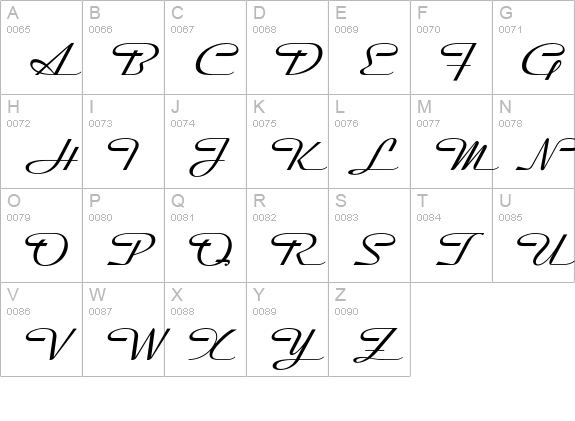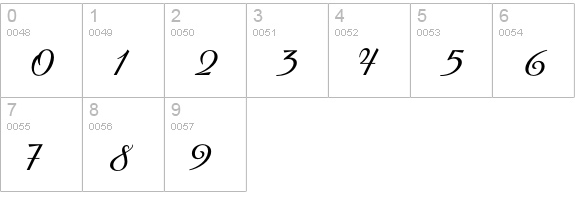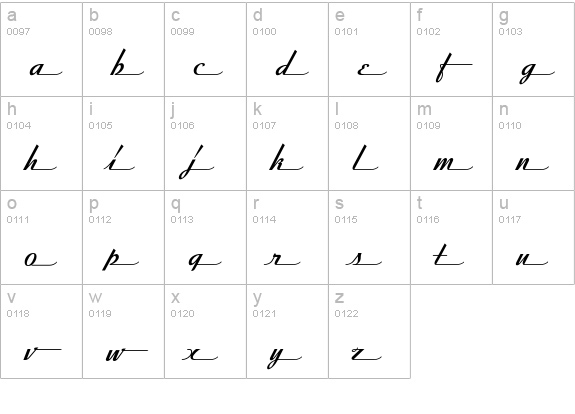
Streamline-LightExtended font is a sleek and modern typeface that exudes sophistication and elegance. With its clean lines and extended letterforms, this font is perfect for adding a touch of style to any design project. The light weight of the font gives it a delicate and airy appearance, making it ideal for use in a variety of applications. What makes Streamline-LightExtended font even more appealing is that it is available for free download at FontsMarket.com. This means that you can easily access this beautiful typeface without any cost, allowing you to enhance your designs without breaking the bank. Whether you're working on a branding project, creating invitations, or designing a website, Streamline-LightExtended font is sure to elevate your work with its timeless charm and versatility. Download it now and add a touch of sophistication to your projects!